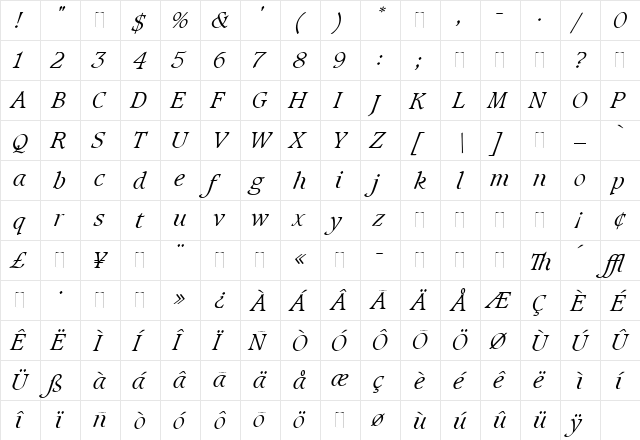
Caxton Light Italic Regular Font Preview
Design Context for Caxton Light Italic Typeface
Caxton Light Italic takes a measured approach to typography — its balanced proportions and neutral character make it a reliable workhorse for both digital and print work. The dynamic lean of this cut emphasises speed and emphasis in any layout. The delicate stroke weight brings airiness and refinement to layouts.
Pro Tip: Use Caxton Light Italic for emphasis, pull quotes, and subheadings where its slanted energy can add rhythm to the layout.